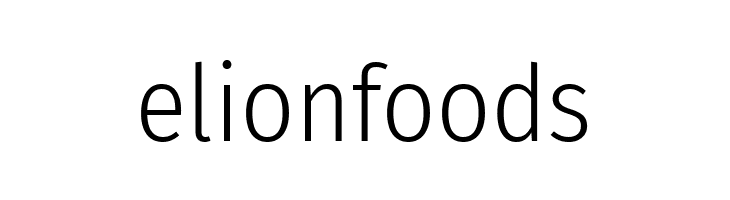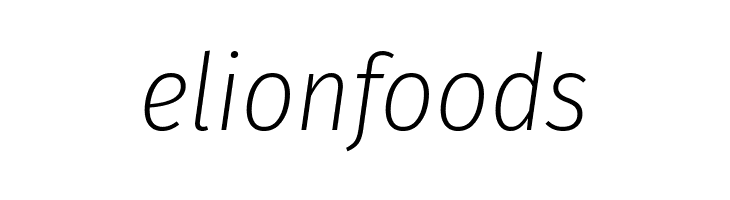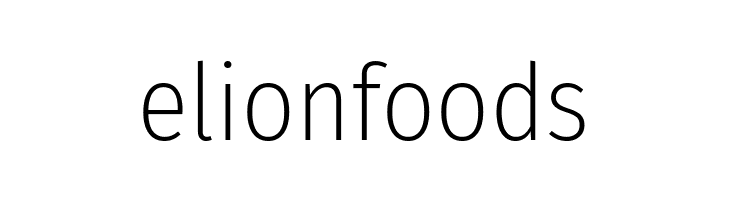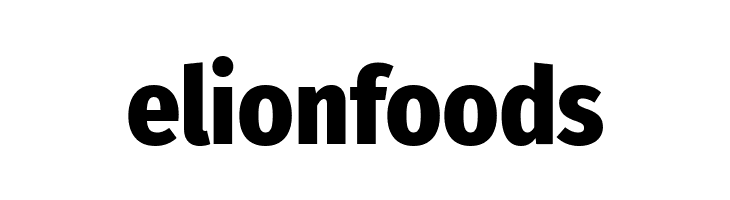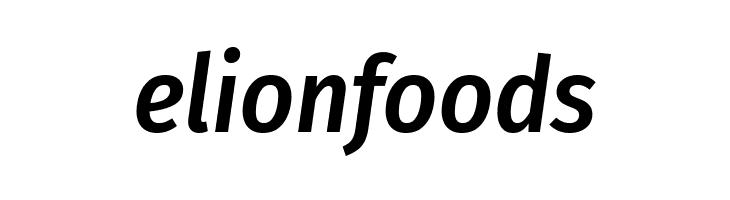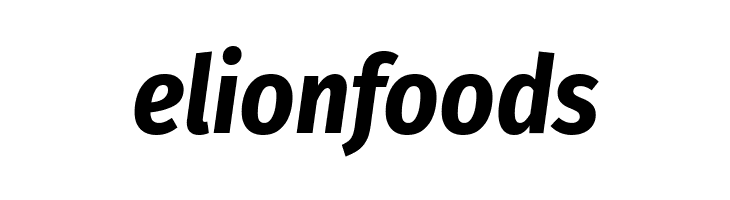
A modern, condensed sans-serif font with light weight and low contrast.
A sleek, modern sans-serif font with a condensed, extra light, and italic style.
A modern, condensed sans-serif font with an extra light weight, perfect for minimalist designs.
A bold, condensed sans-serif font with a modern and robust style.
A modern, condensed sans-serif font with medium weight and italic style.
A modern, bold, condensed sans-serif font with italic styling.
A bold, condensed sans-serif font with high contrast and tight spacing.
A modern, thin, and condensed sans-serif font with clean lines.